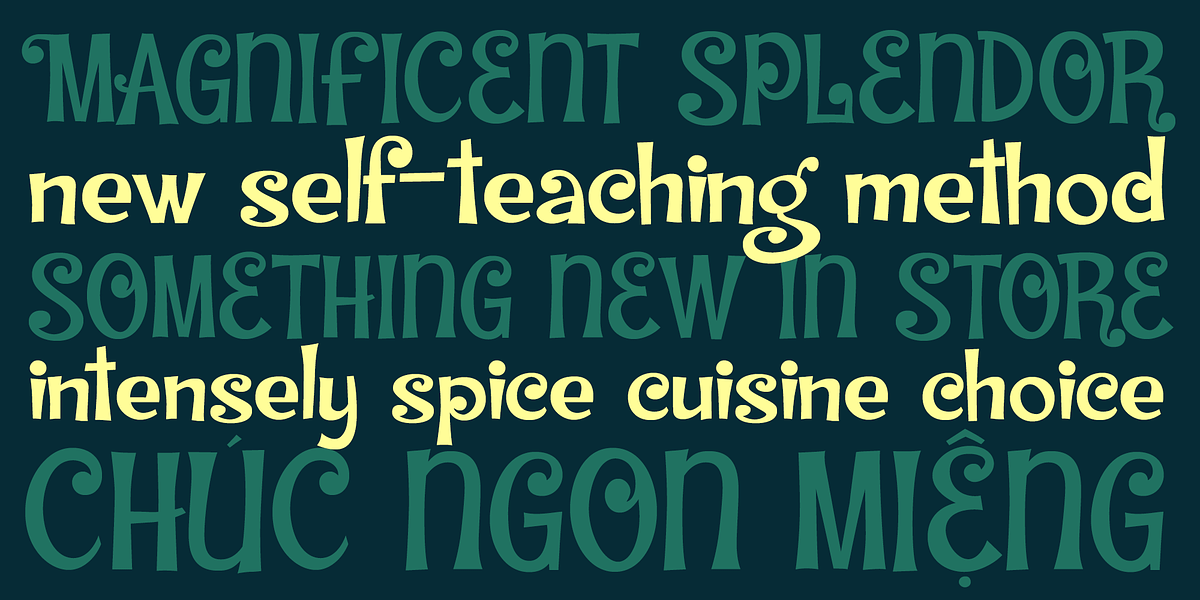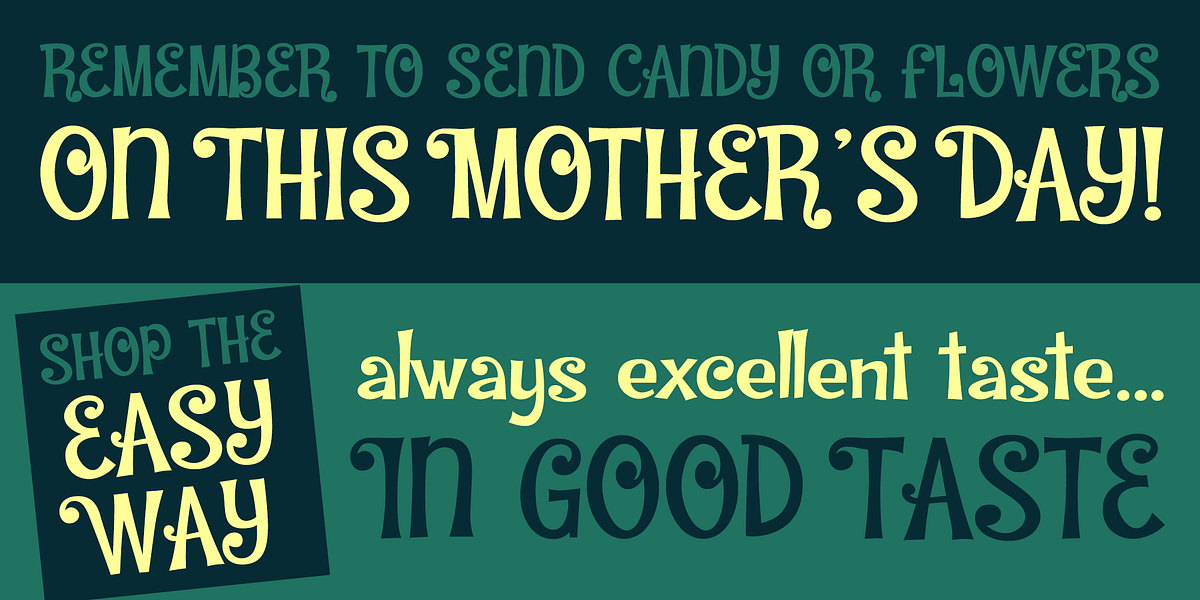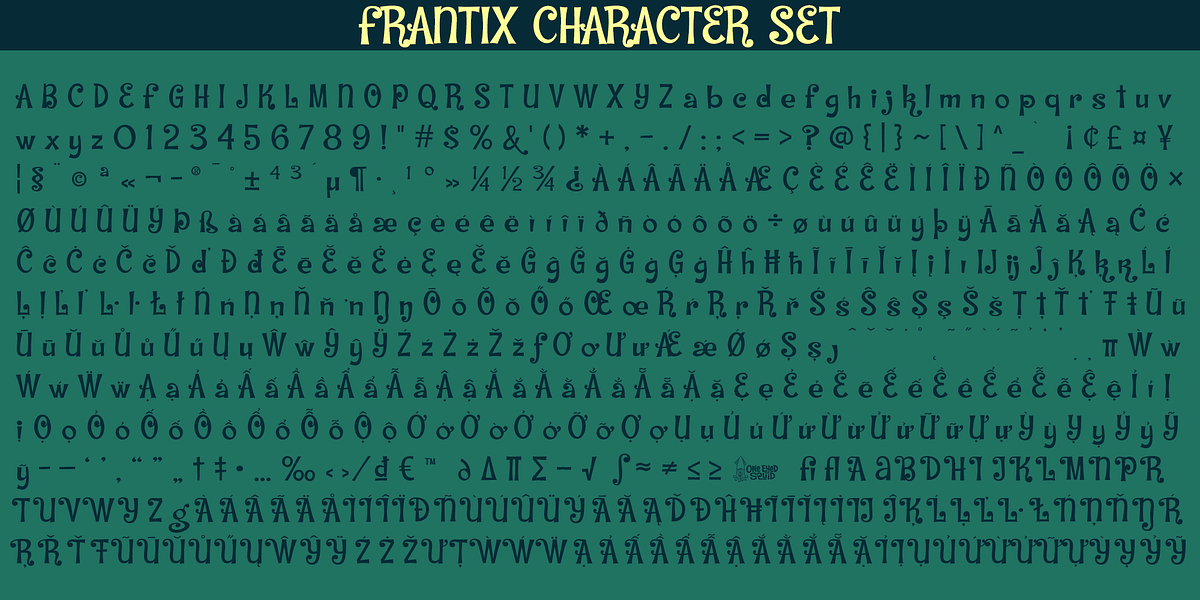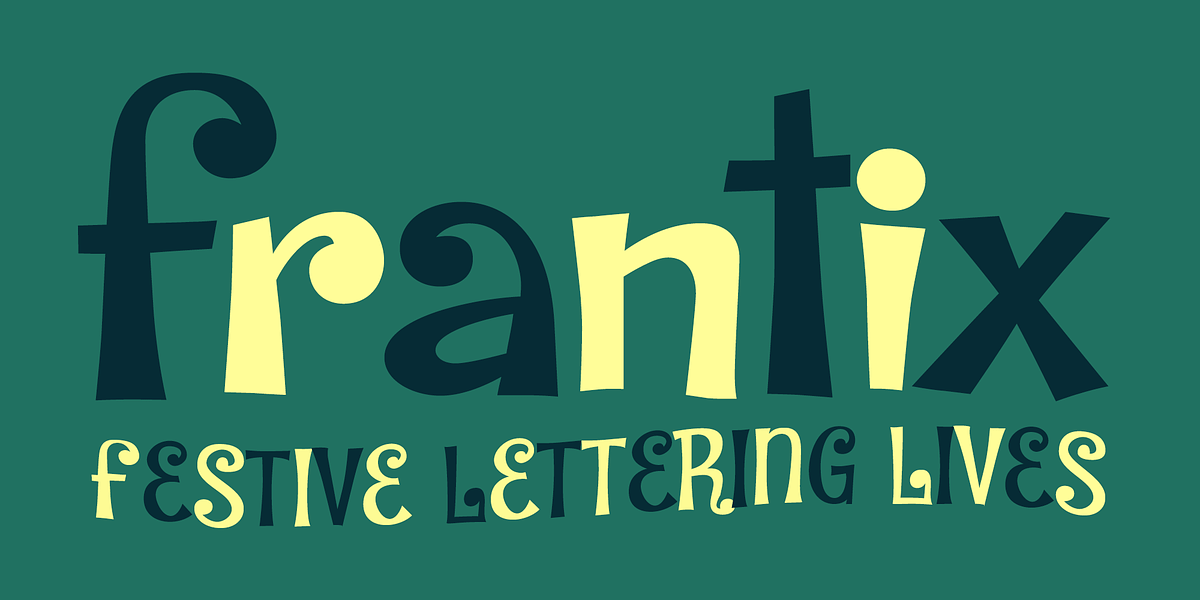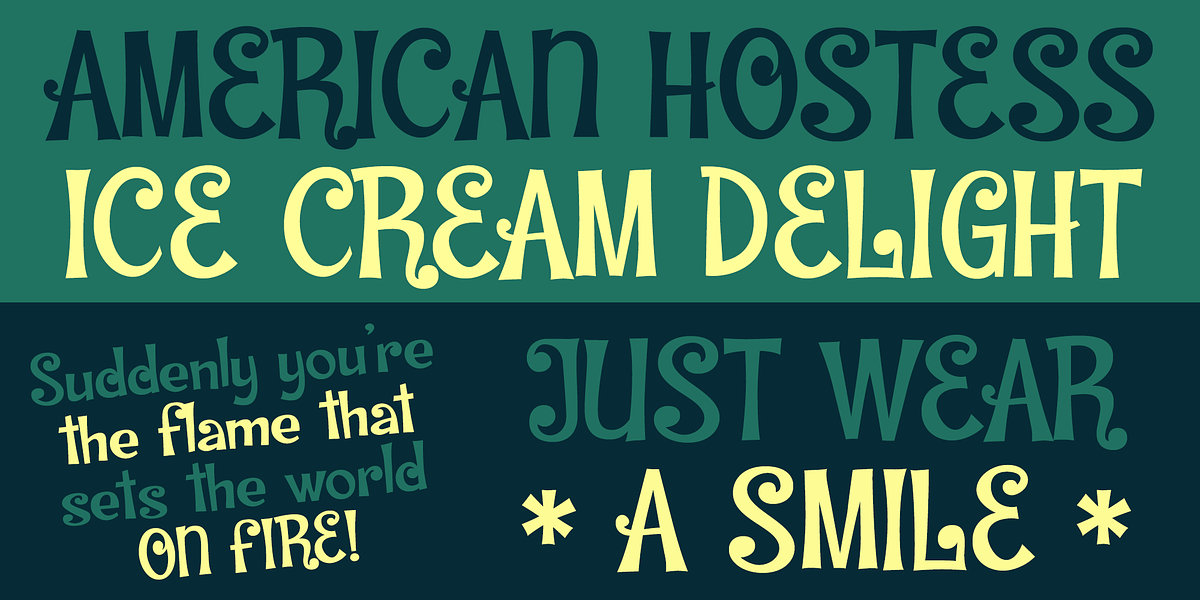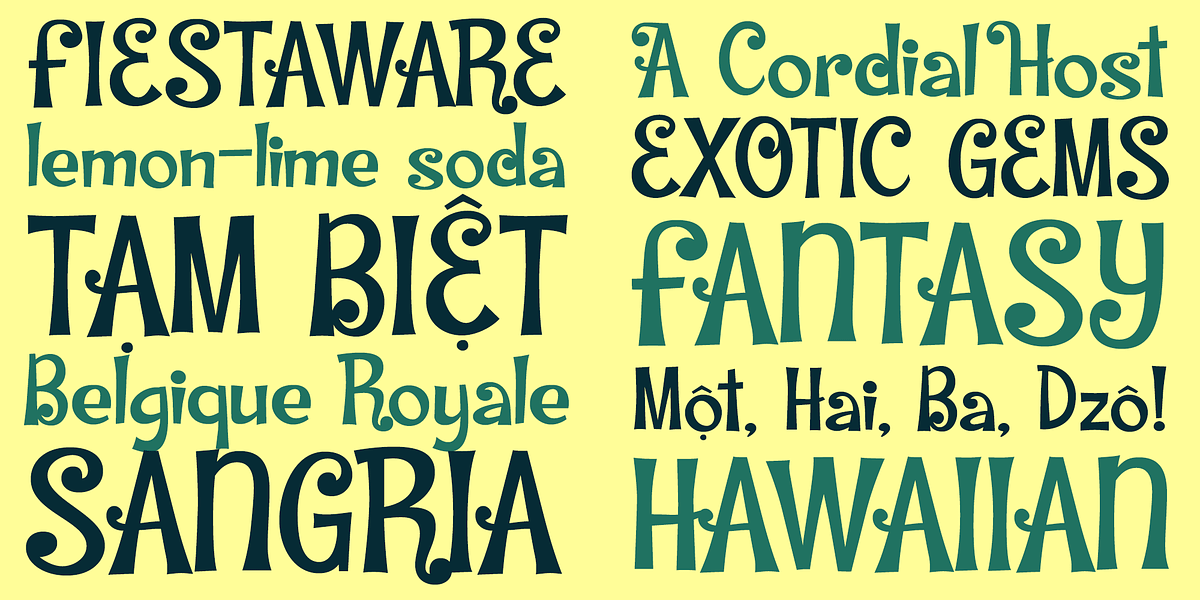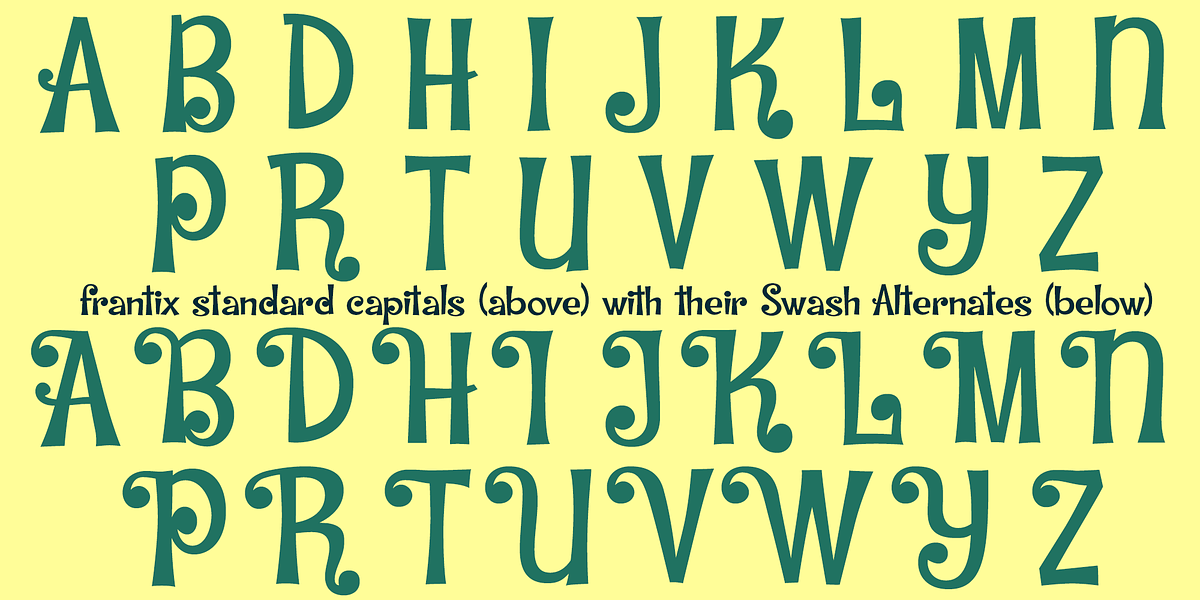
Frantix
Frantix is a whimsical hand-drawn script font designed to add a touch of fun and festivity to design projects. It features curly letterforms and includes swash alternates for added flair. The extended Latin character set with Vietnamese support makes it versatile for various uses.